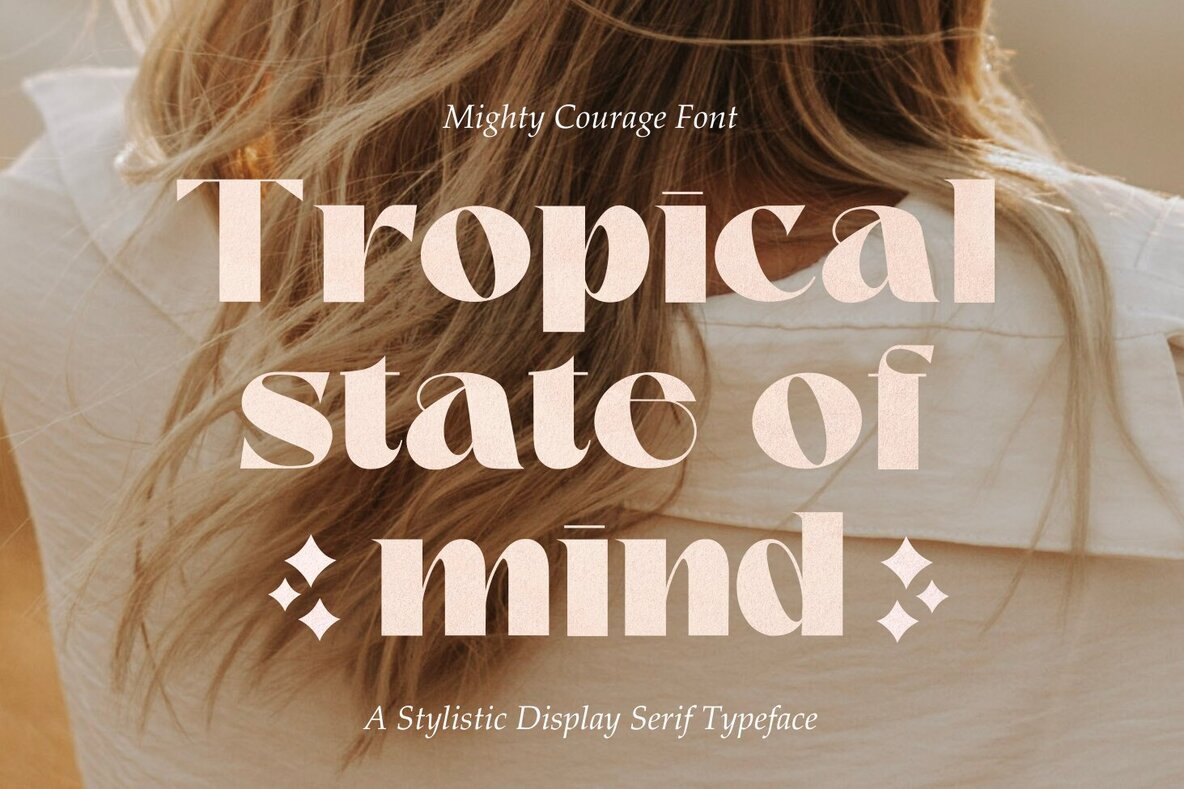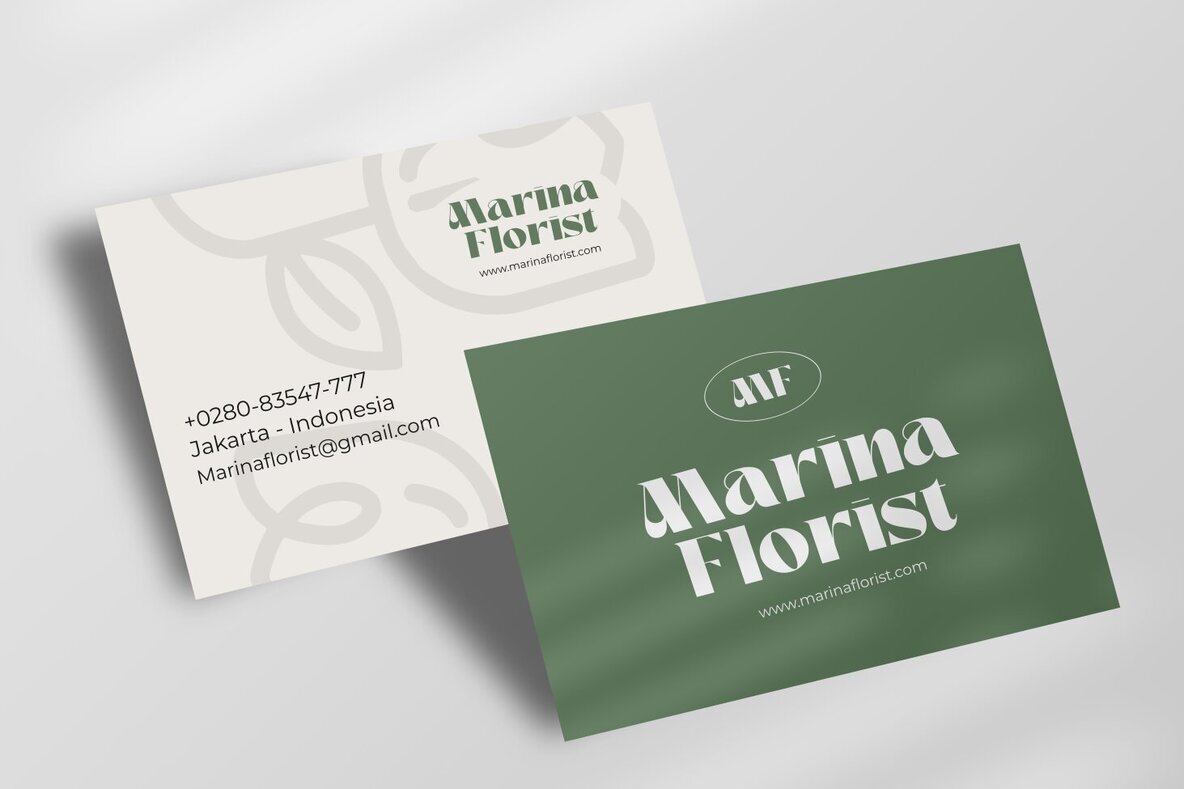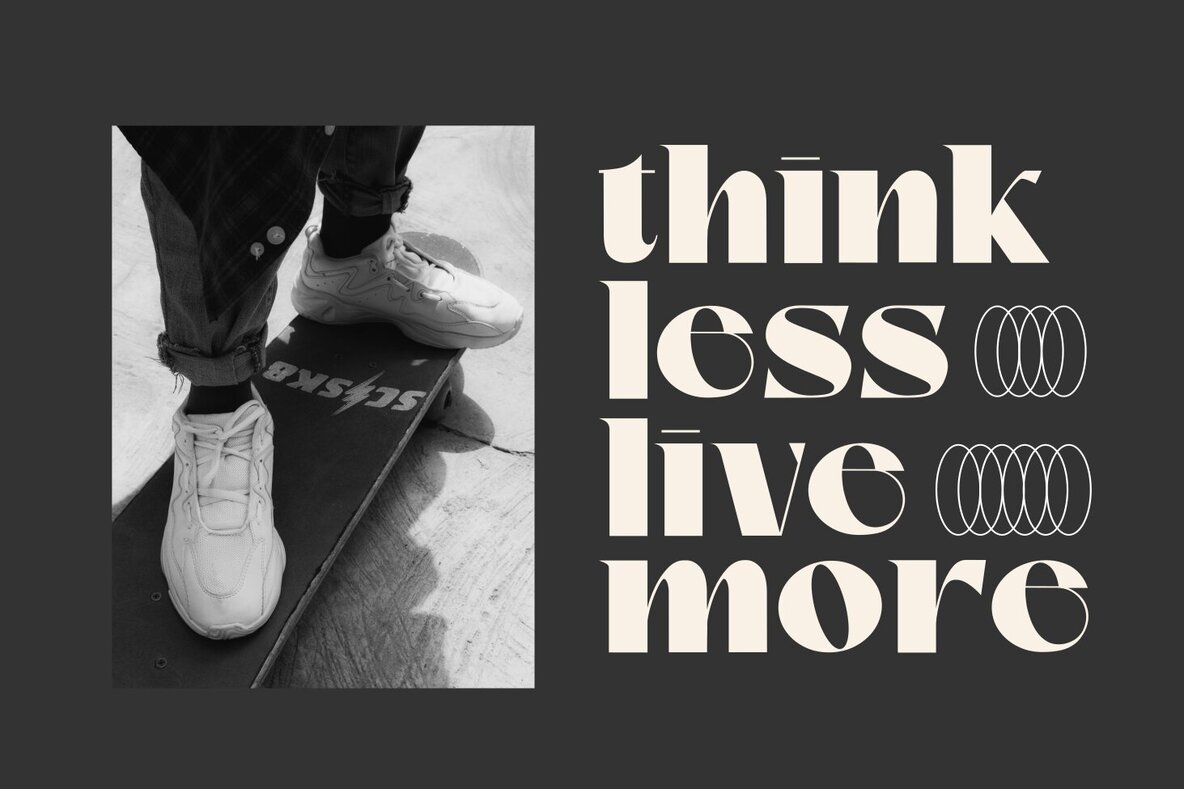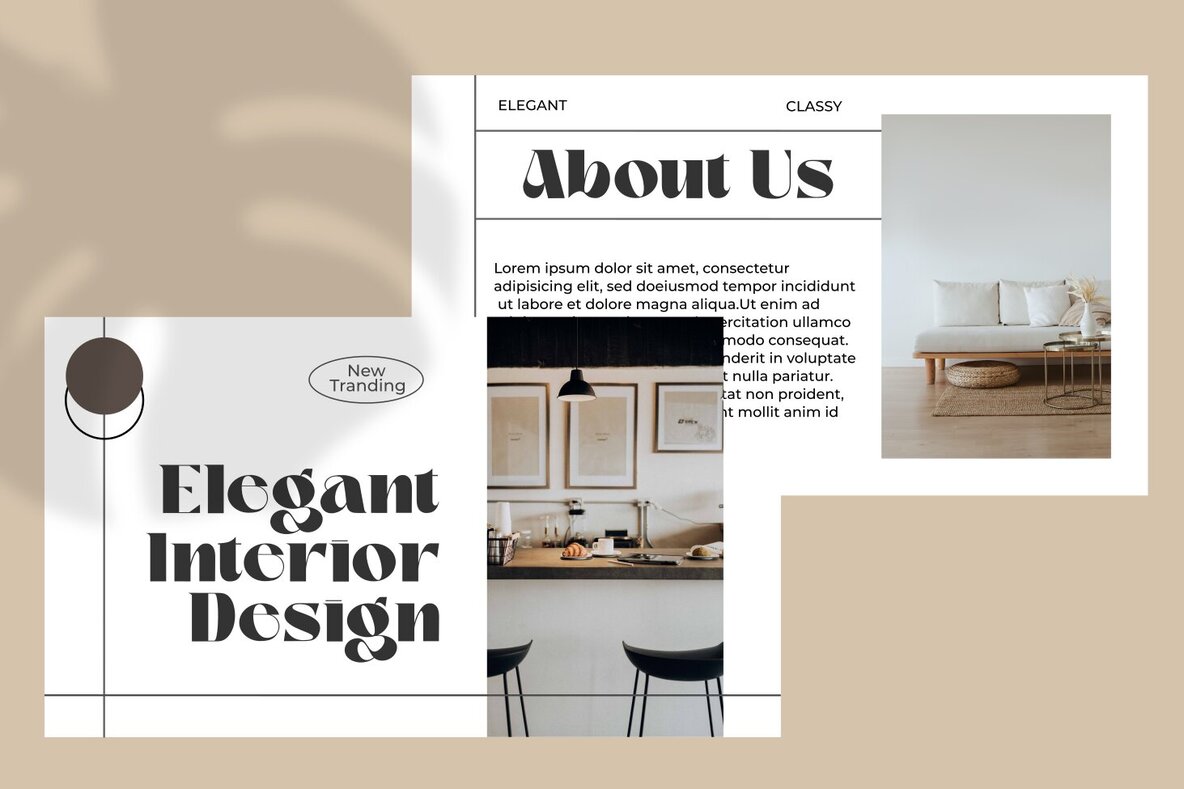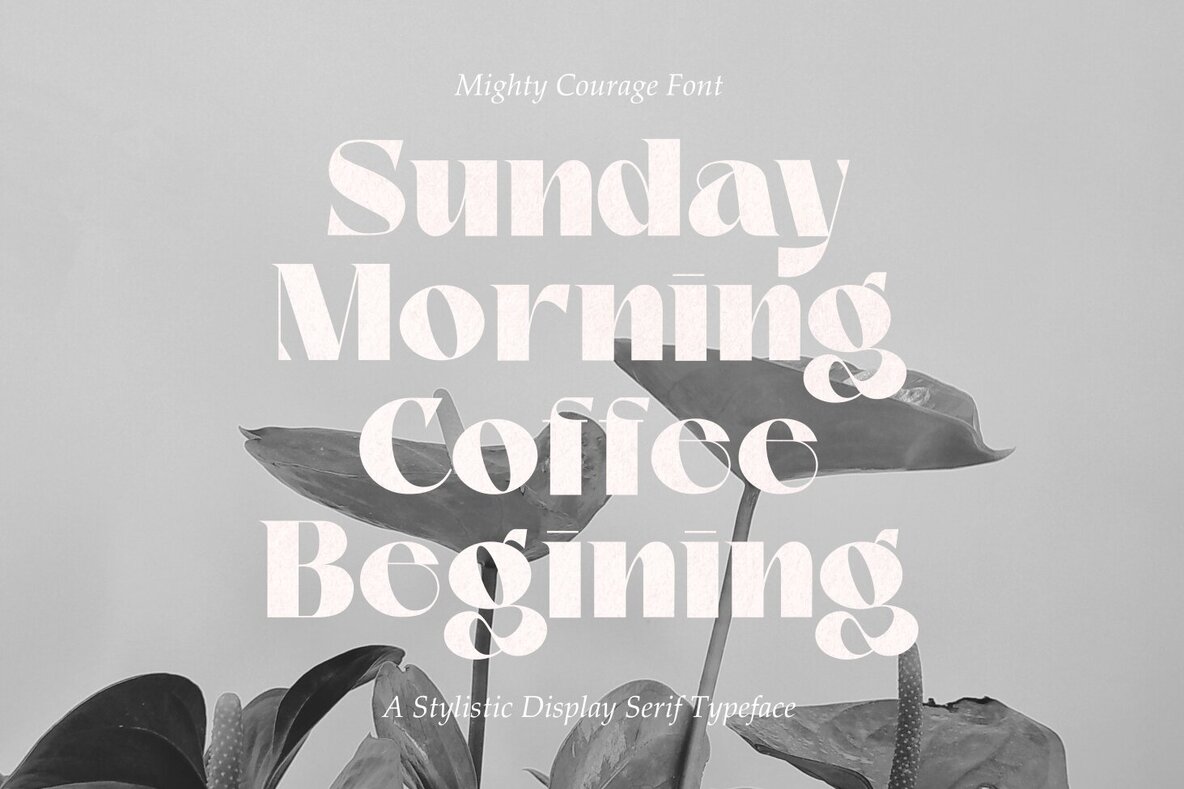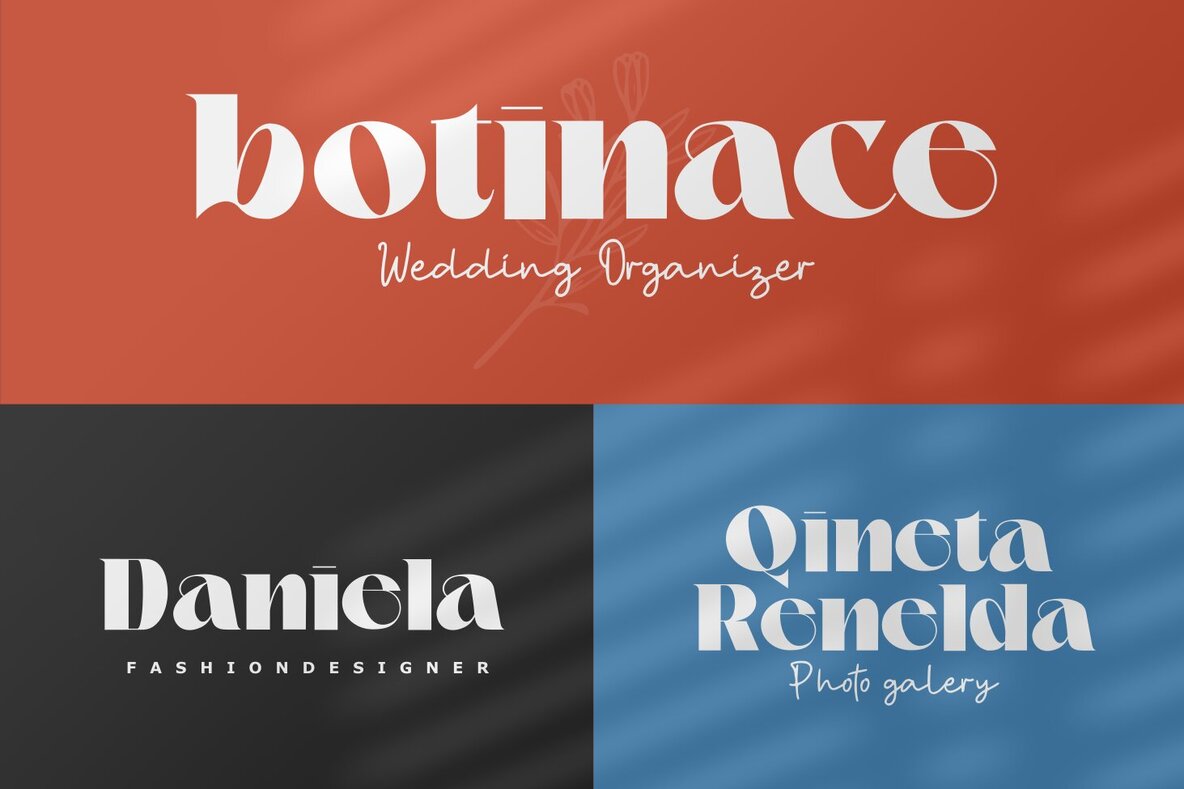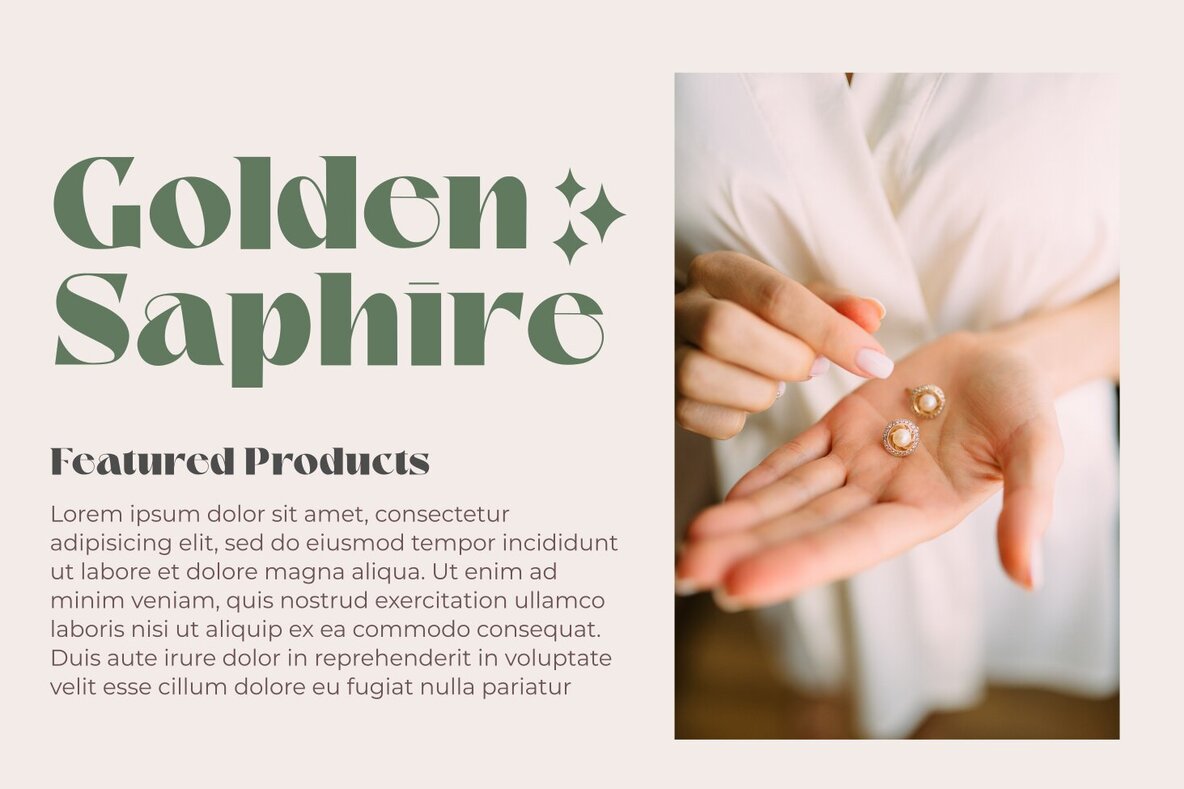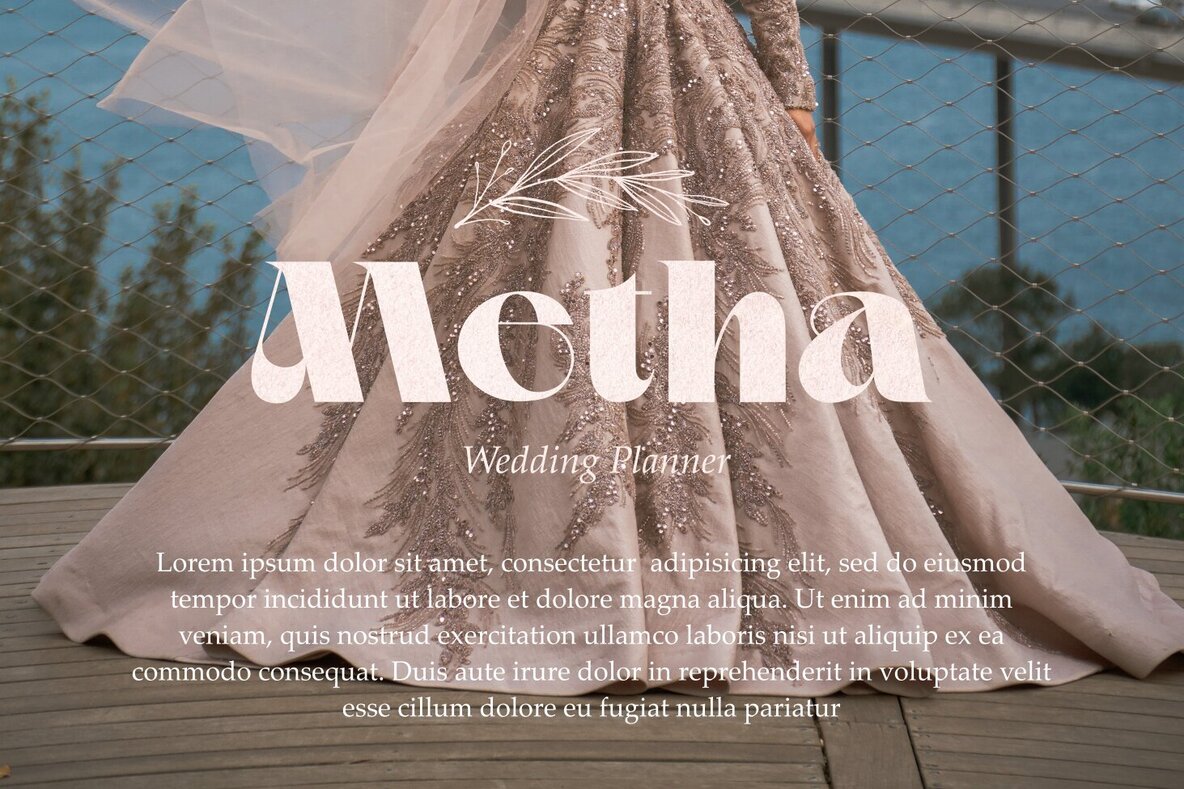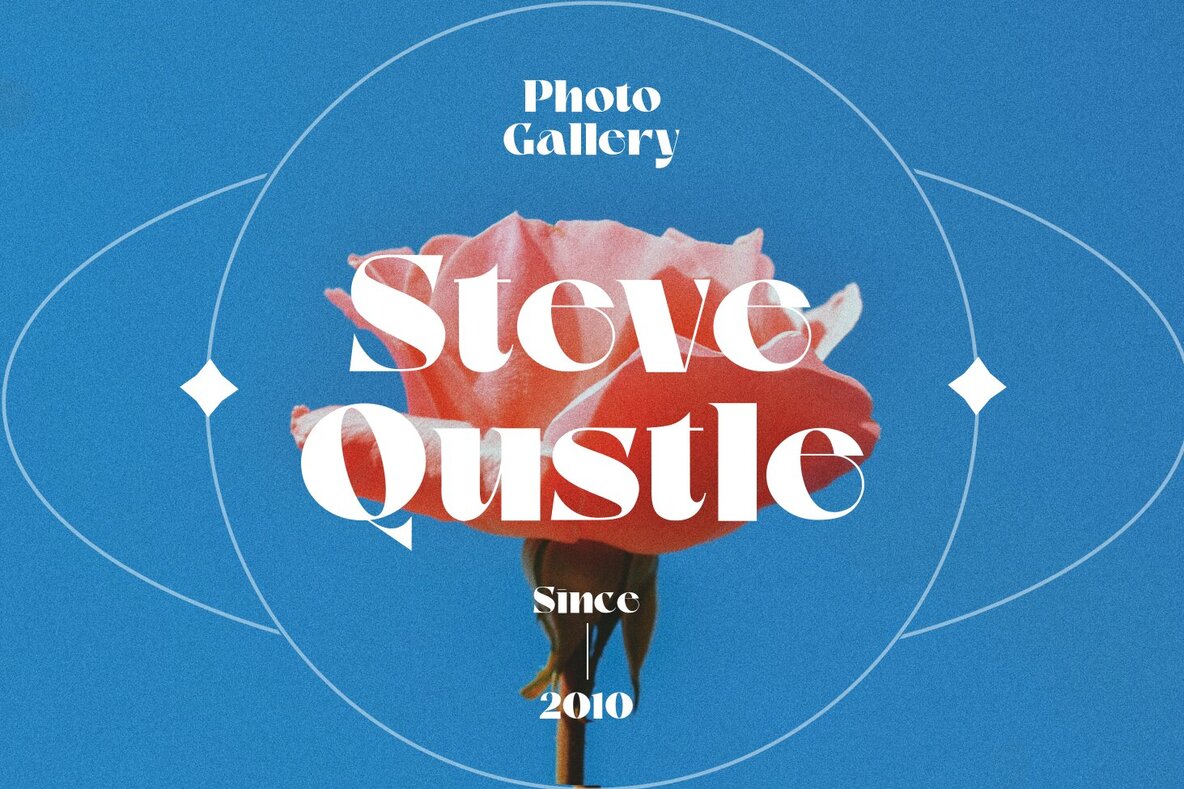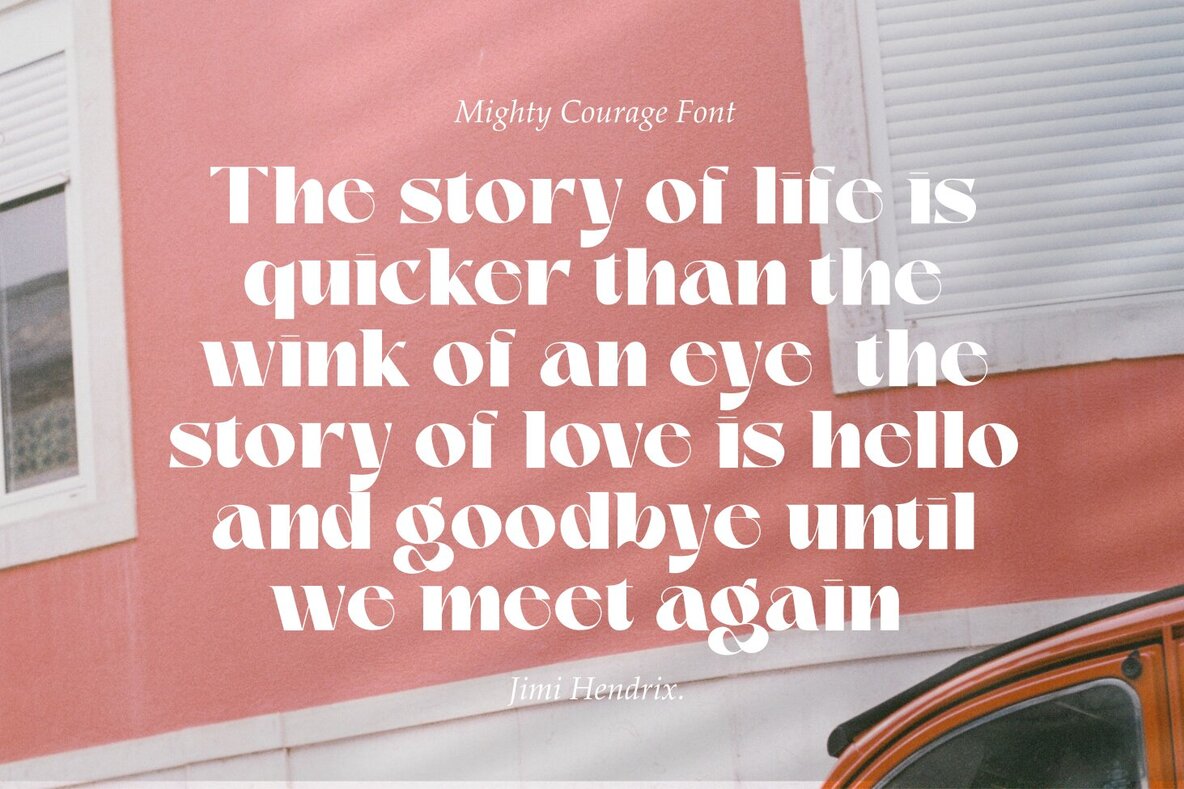
Mighty Courage Font
Mighty Courage Regular
Mighty Courage is a modern serif typeface that combines bold, dynamic characters with high contrast between thick and thin lines. This sophisticated font by Zeenesia Studio exudes style and is perfect for contemporary, high-end branding and editorial design. Its clean and sharp letterforms offer versatility, ensuring both readability and visual impact.Mighty Courage: Dynamic Serif with Bold Elegance